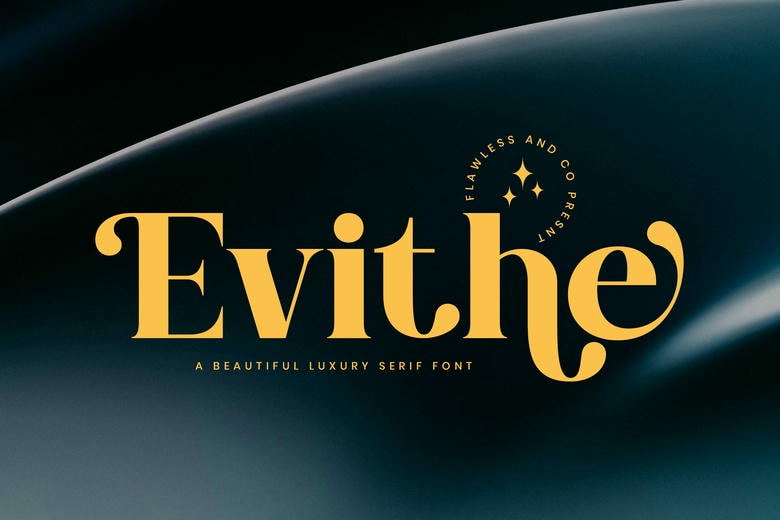
Evithe Font
Evithe is a beautiful display serif font that is elegant and sophisticated in every part of its moving lines. Created with luxurious elegance and detailed finesse, EVITHE brings together both classic beauty and contemporary feel, and thus it is the ideal visual identity option required by those who are interested in leveling up their visual identity.
With luxury branding, luxury fashion editorials and a taste of luxury and sophistication that one can never forget, EVITHE stands out with sophistication and class as its finishing touch.